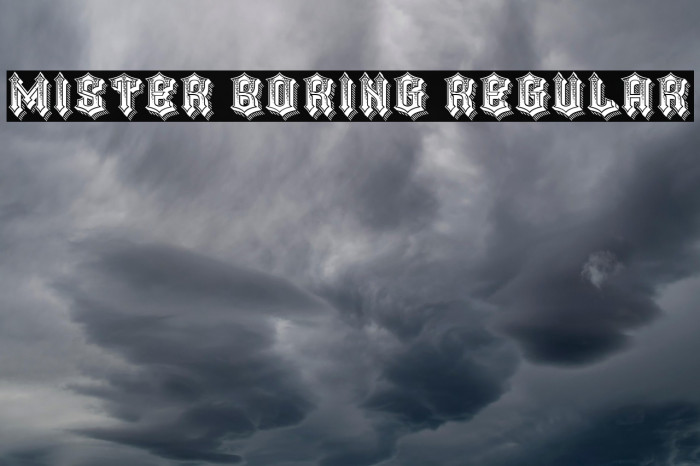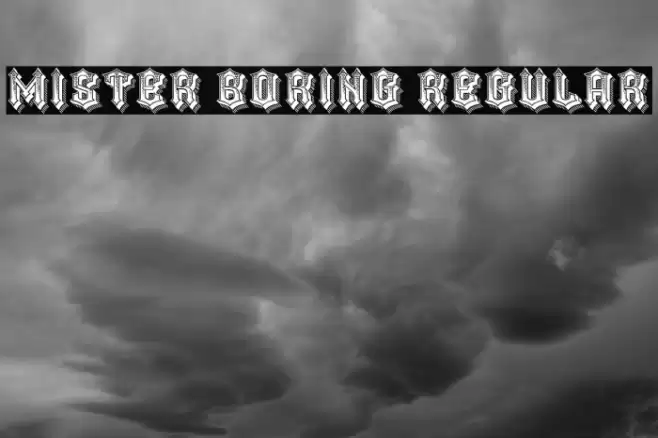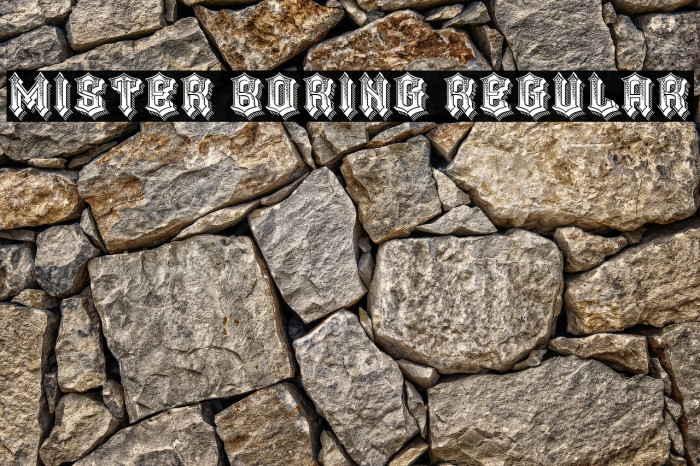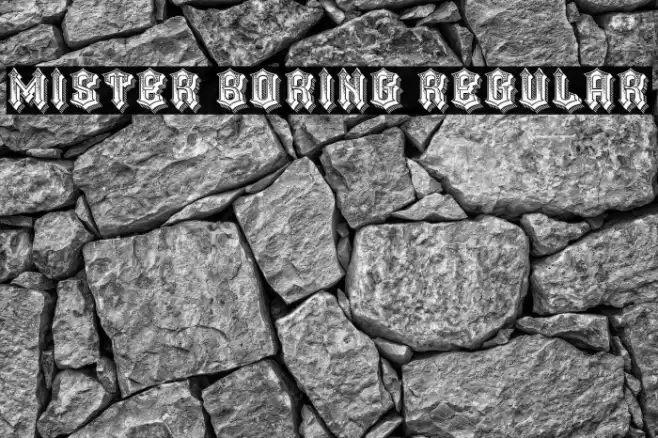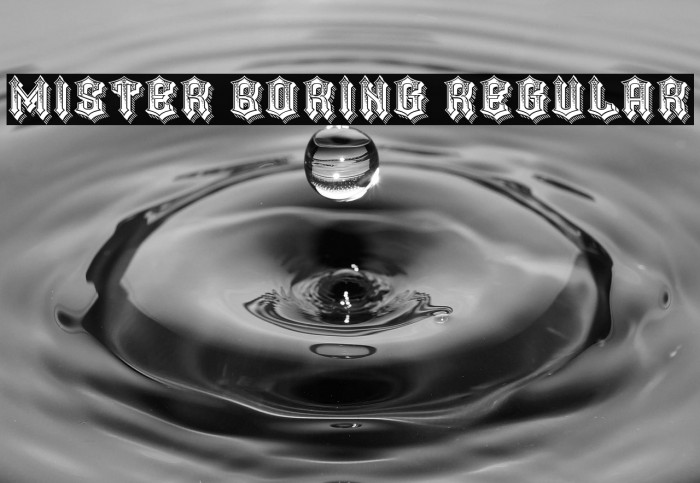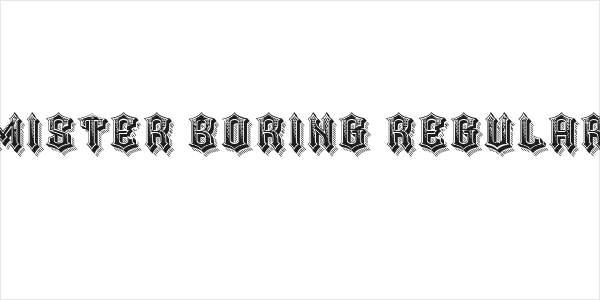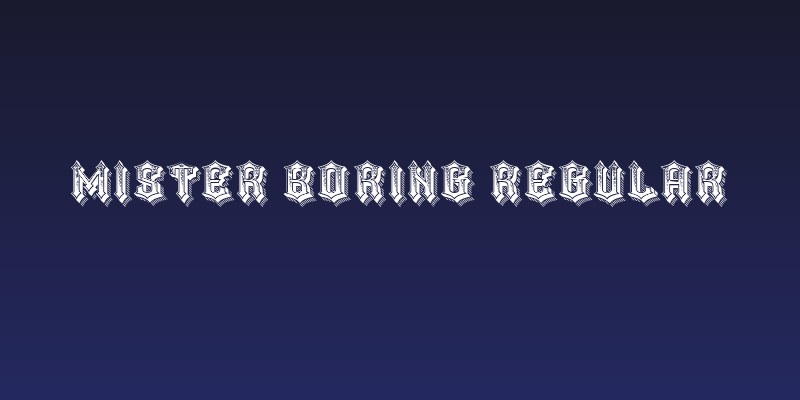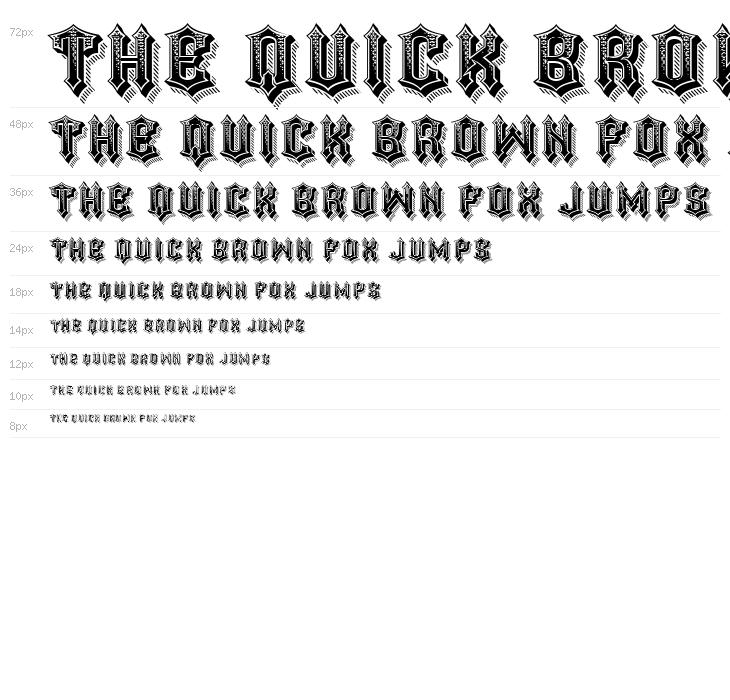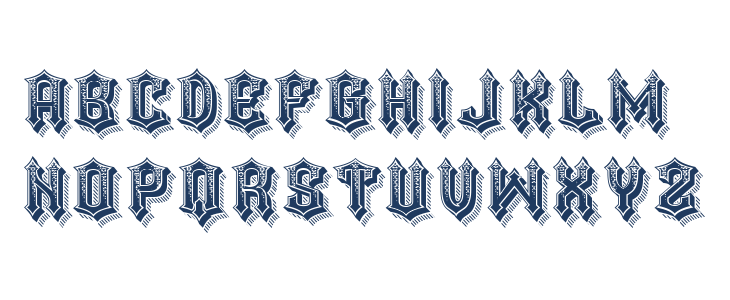
Mister Boring Regular Font
Mister Boring Regular Description
This font features a bold, intricate design with a strong blackletter influence, characterized by its ornate and decorative elements. The letters are highly stylized with sharp angles and elaborate detailing, giving it a distinct and striking appearance. The font exhibits a sense of historical elegance, reminiscent of medieval script with a modern twist. Each character is meticulously crafted, showcasing a high level of artistry and attention to detail. The overall aesthetic is both commanding and sophisticated, making it ideal for projects that require a touch of grandeur and tradition.
| Proposed Projects | Suitable for use in branding, posters, book covers, and any design requiring a historical or gothic touch. |